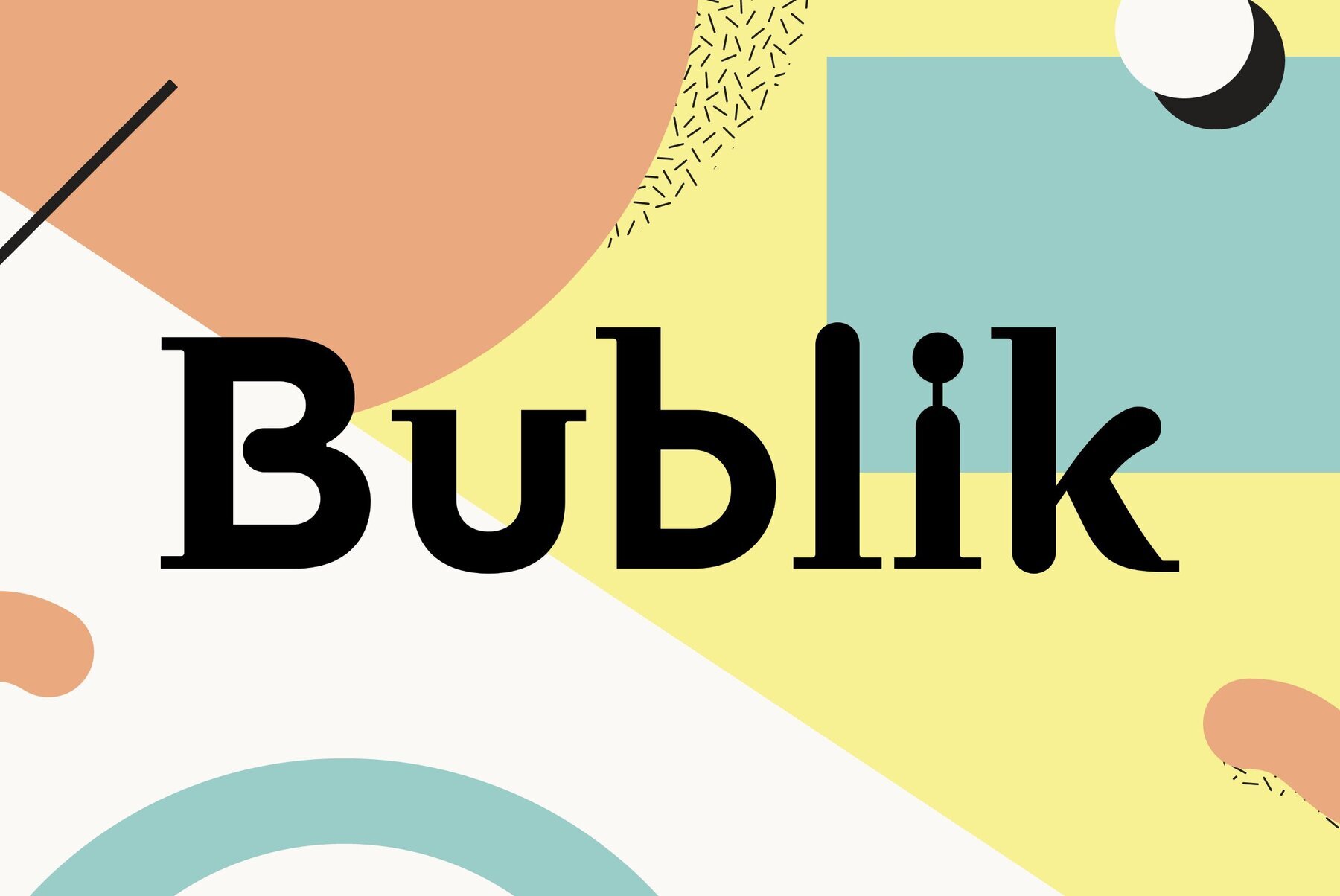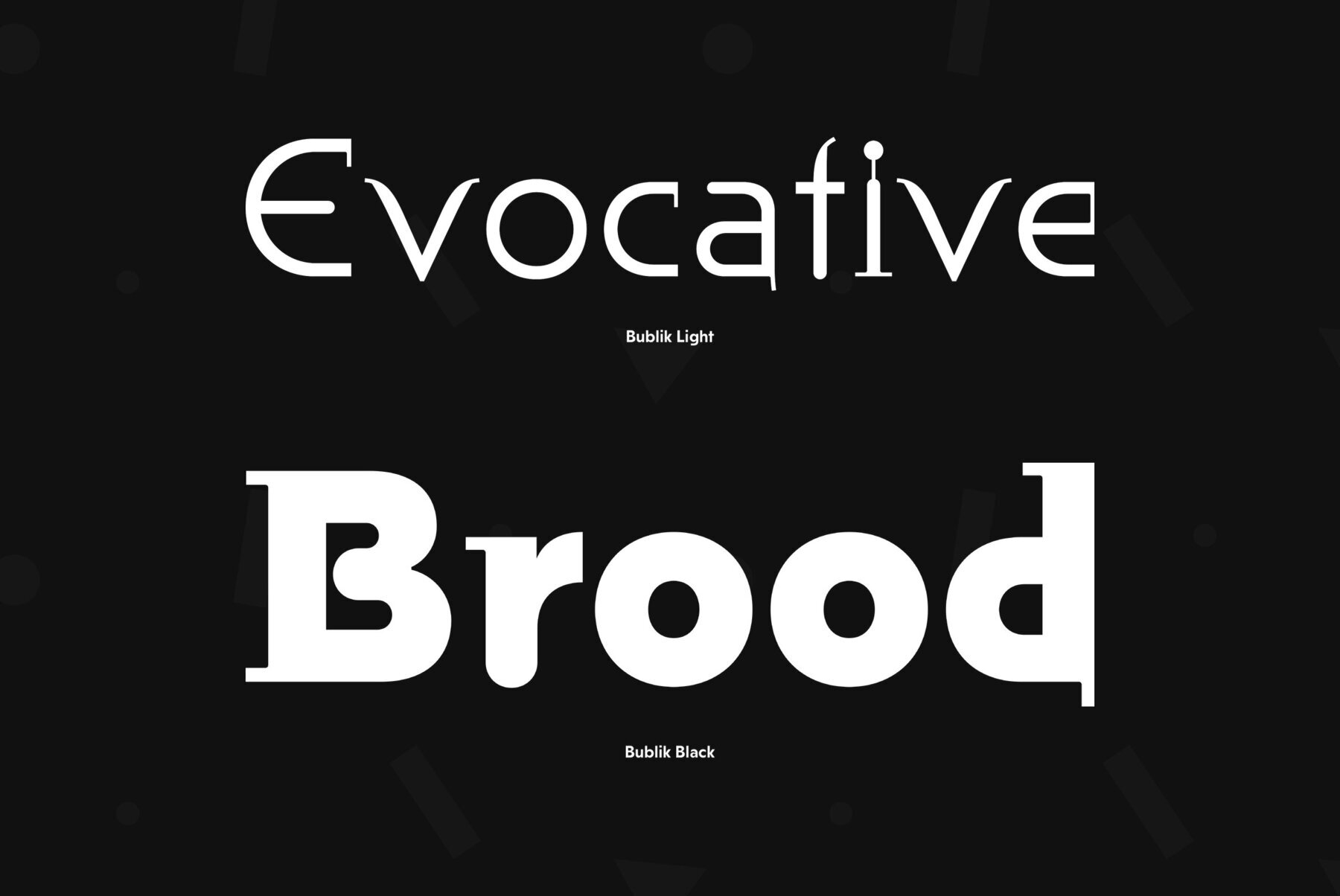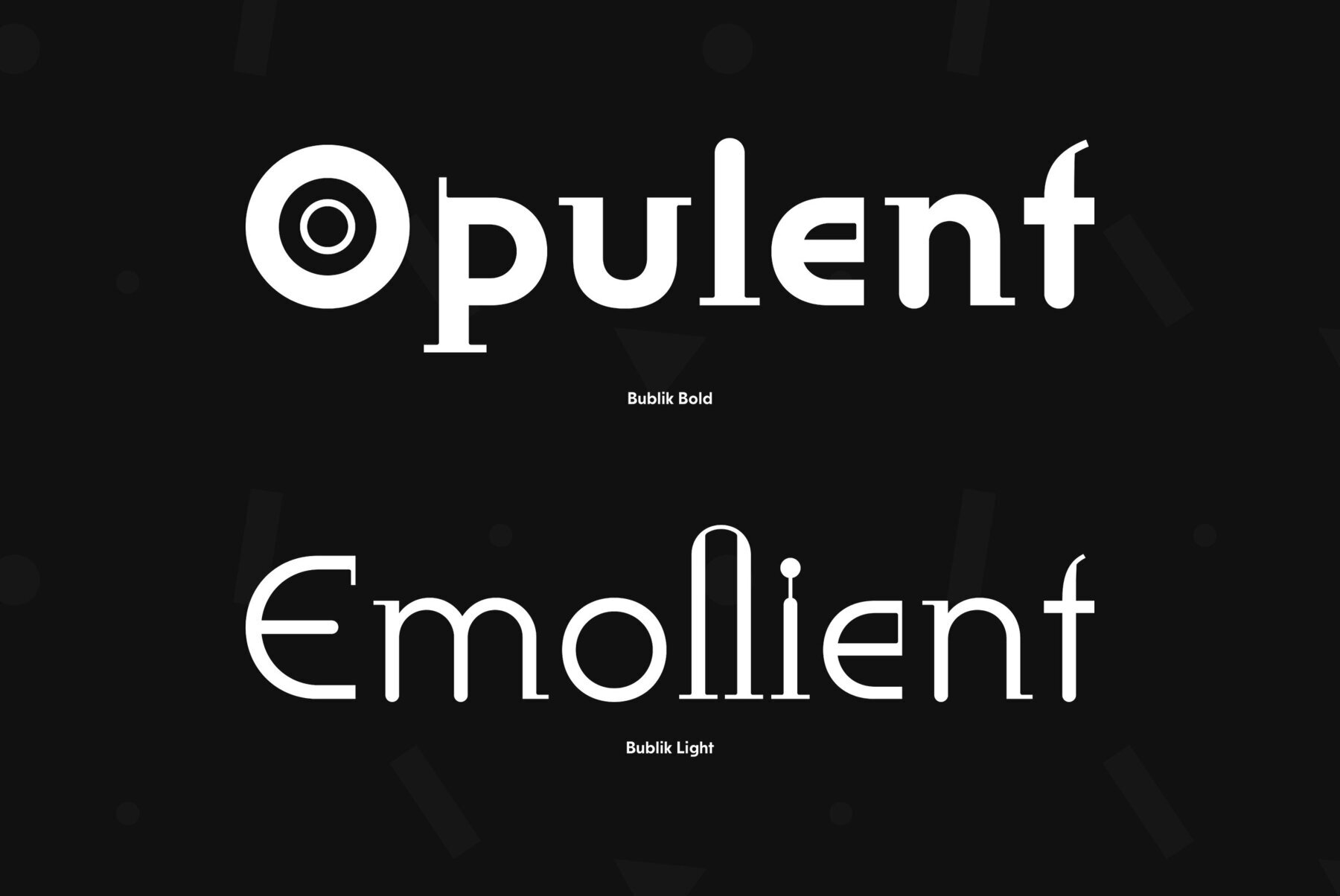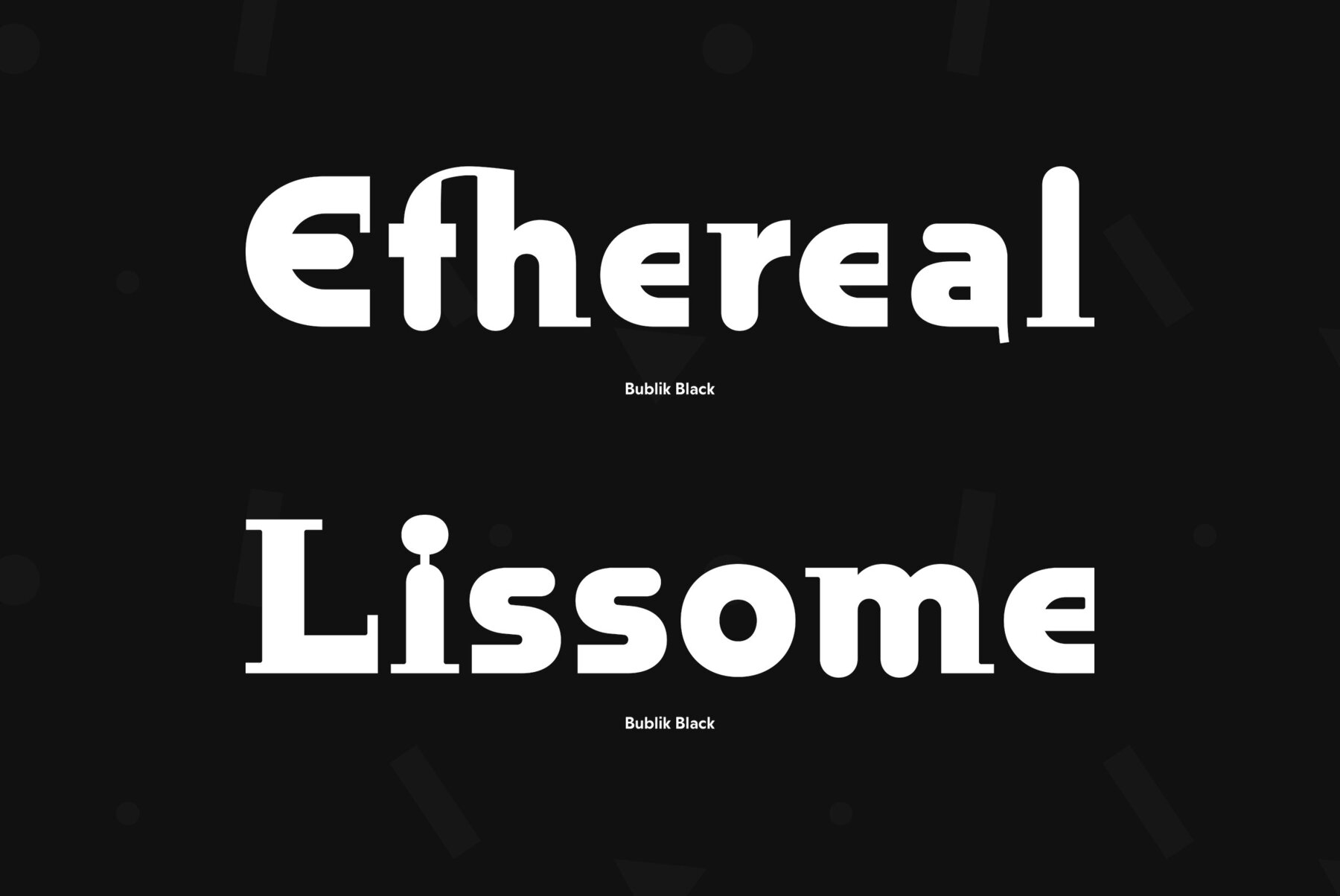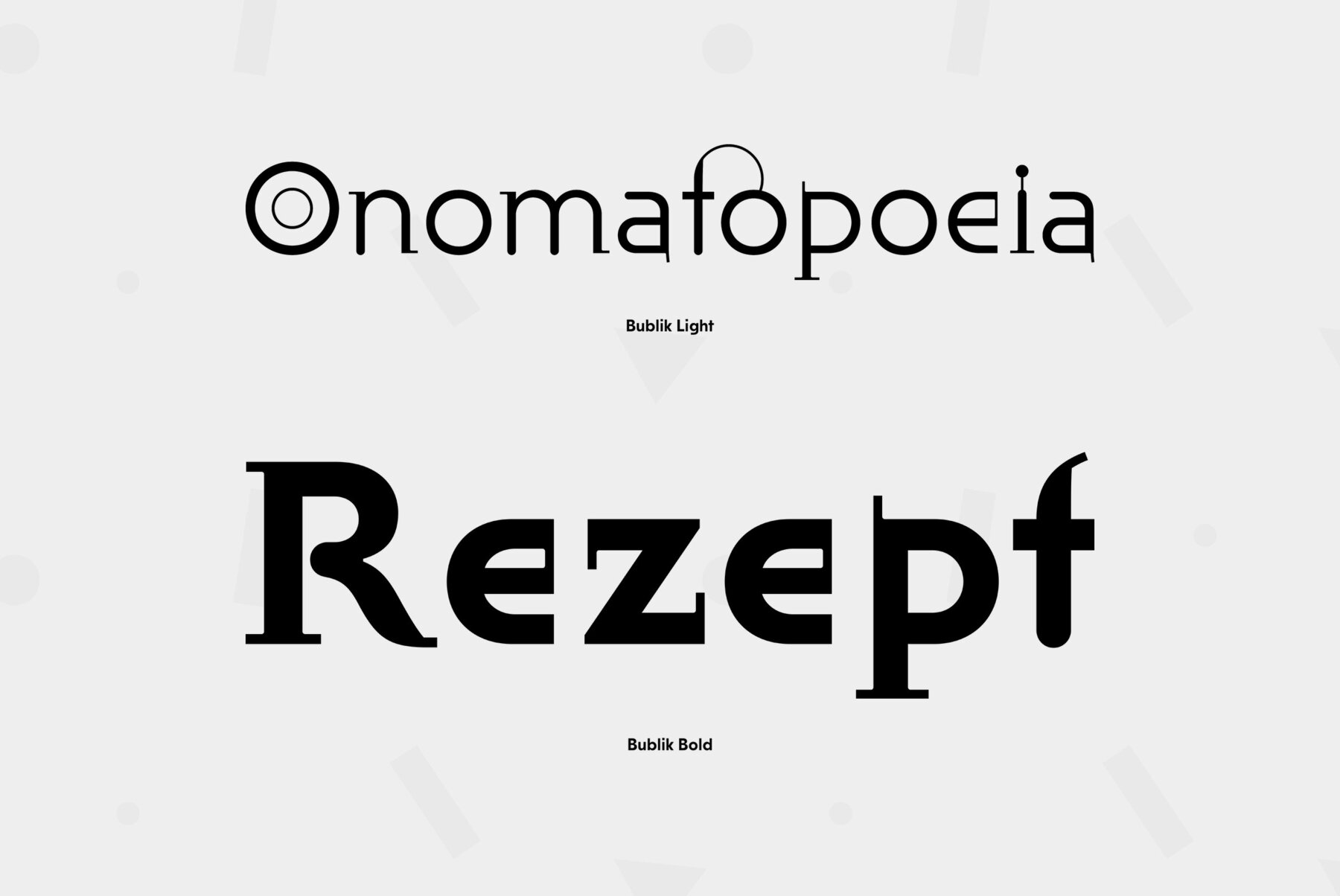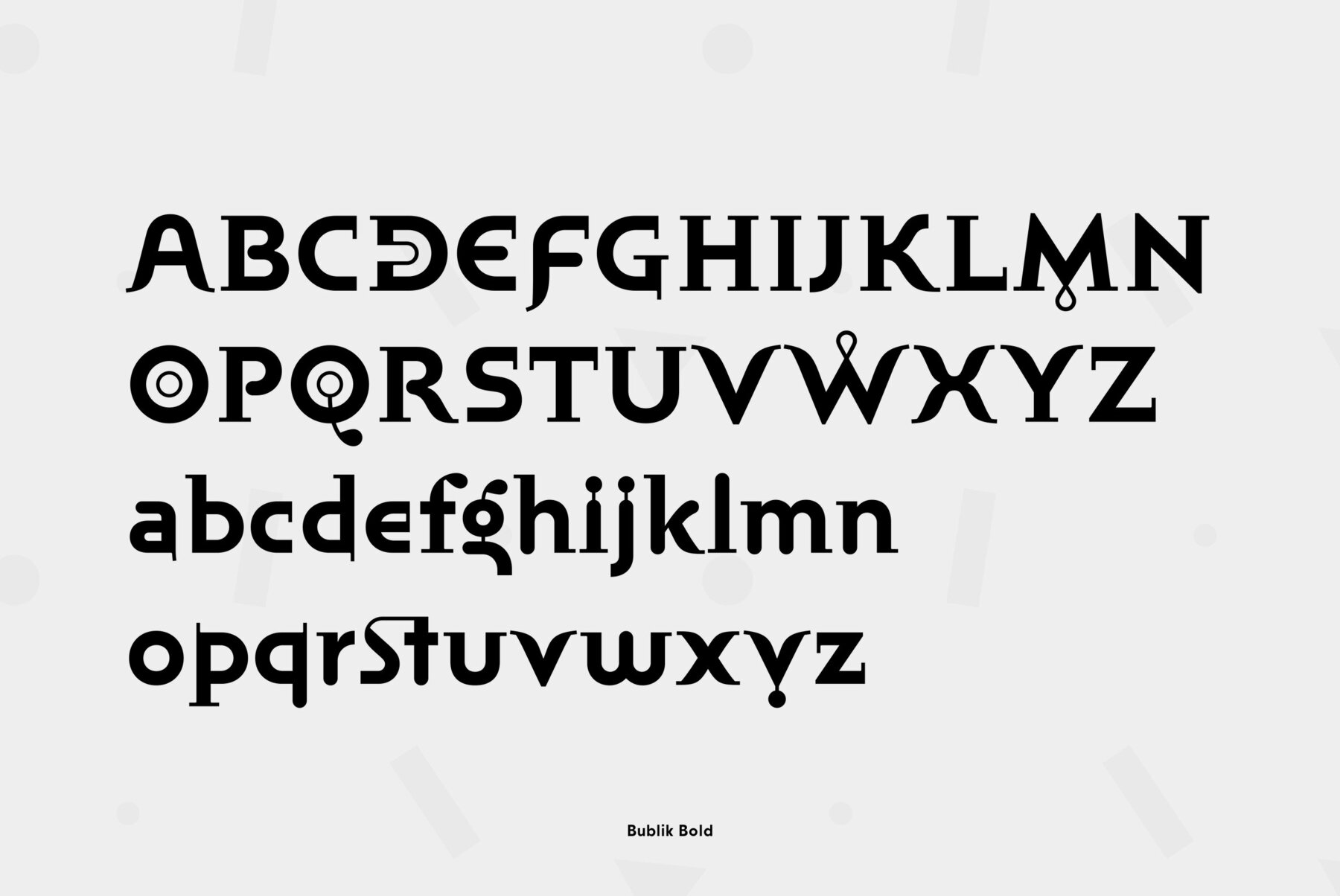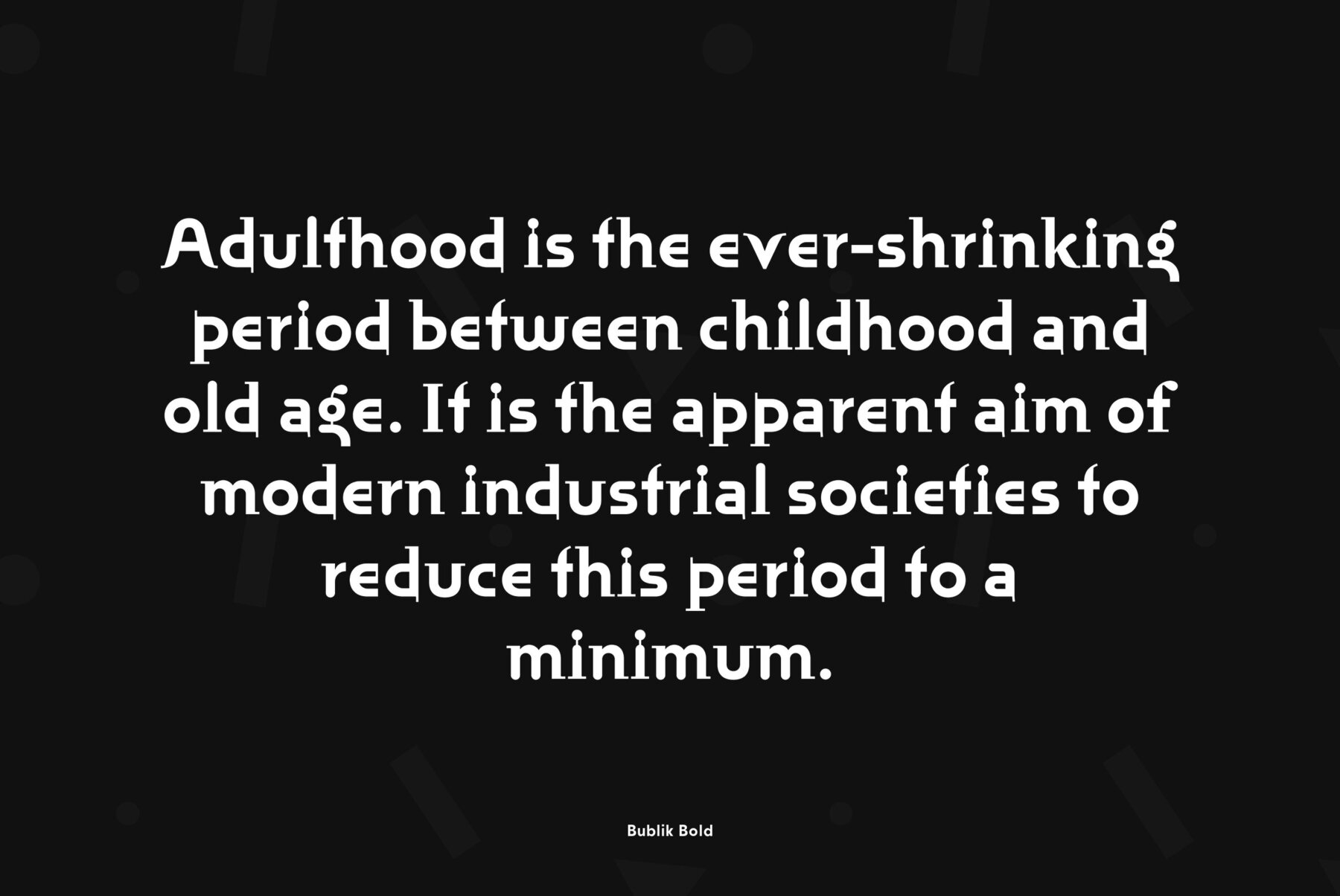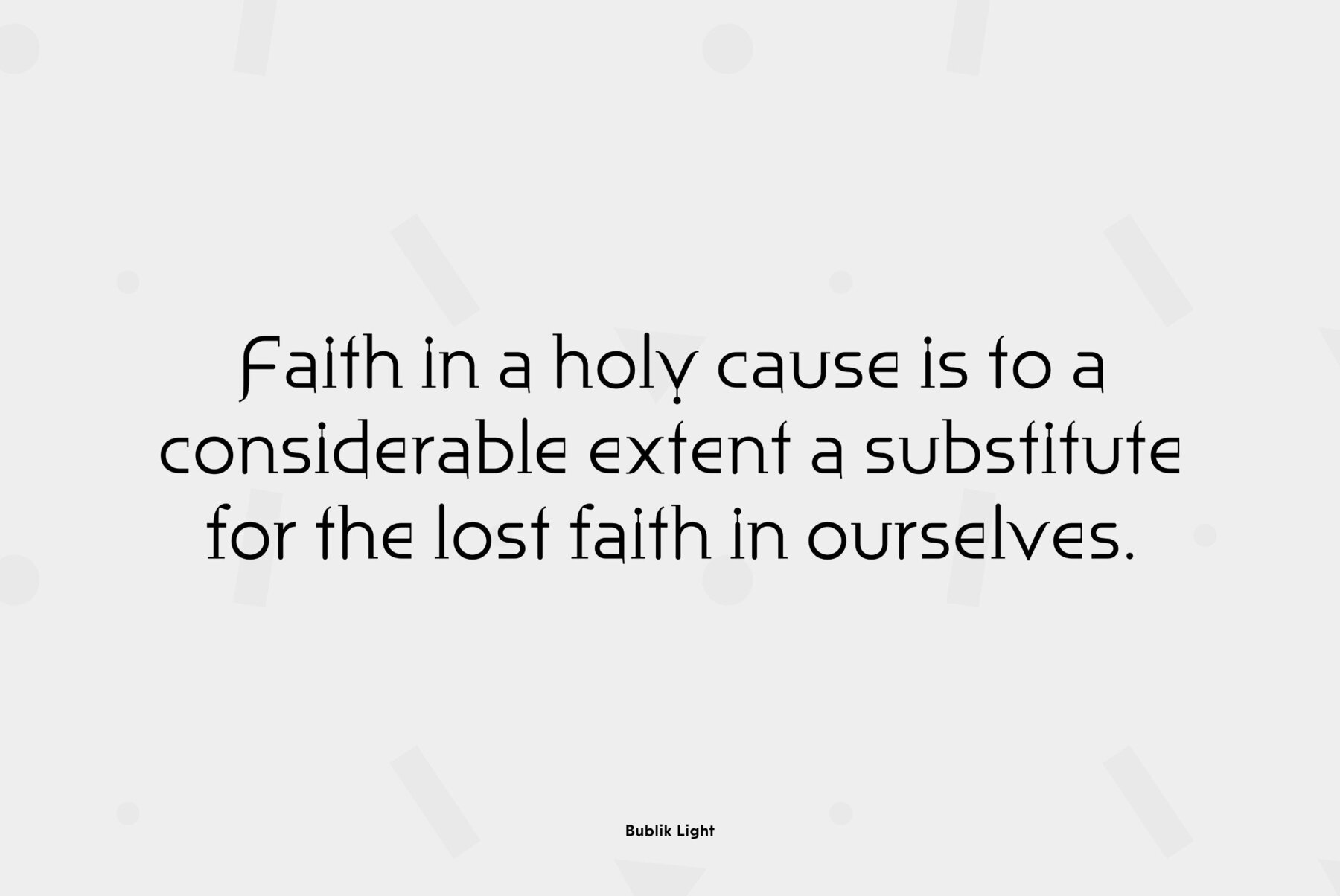
One weight of Bublik was designed in 2004 by Oleg Karpinsky exclusively for ParaType. The typeface belongs to the mixed stylistic group and combines features of sans serif and serif typefaces.
One weight of Bublik was designed in 2004 by Oleg Karpinsky exclusively for ParaType. The typeface belongs to the mixed stylistic group and combines features of sans serif and serif typefaces. For use in advertising and display typography. Bublik was selected by the jury of TDC2 2005 annual type design competition (New York, 2005). In 2008 the author added two weights (Bold and Black) and improved letterforms of some characters.